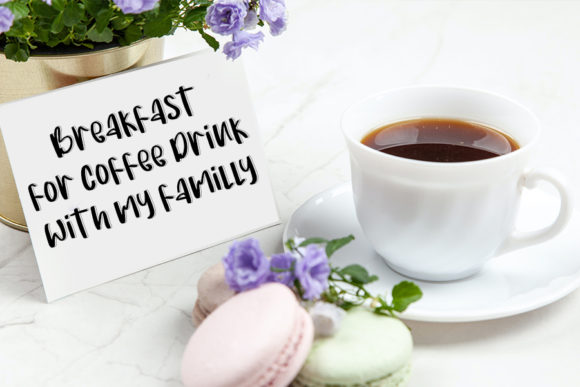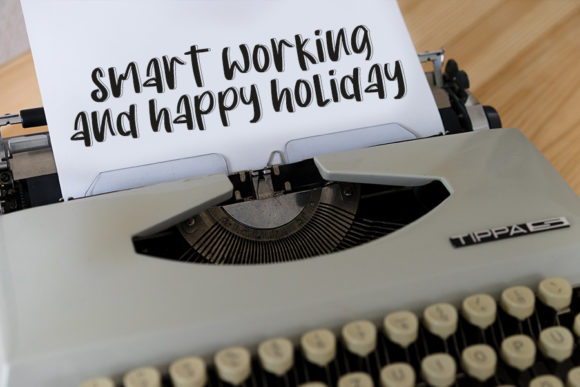
Powerful Christmas Font
Powerful Christmas Font is a cool and adaptable display font. This font is suitable for designs such as t-shirts, sportswear, posters, logos, advertisements, clothing, and more.
Powerful Christmas Font is a cool and adaptable display font. This font is suitable for designs such as t-shirts, sportswear, posters, logos, advertisements, clothing, and more. Whatever the topic, this font will be a great asset to your font collection, as it has the potential to enhance any creation.